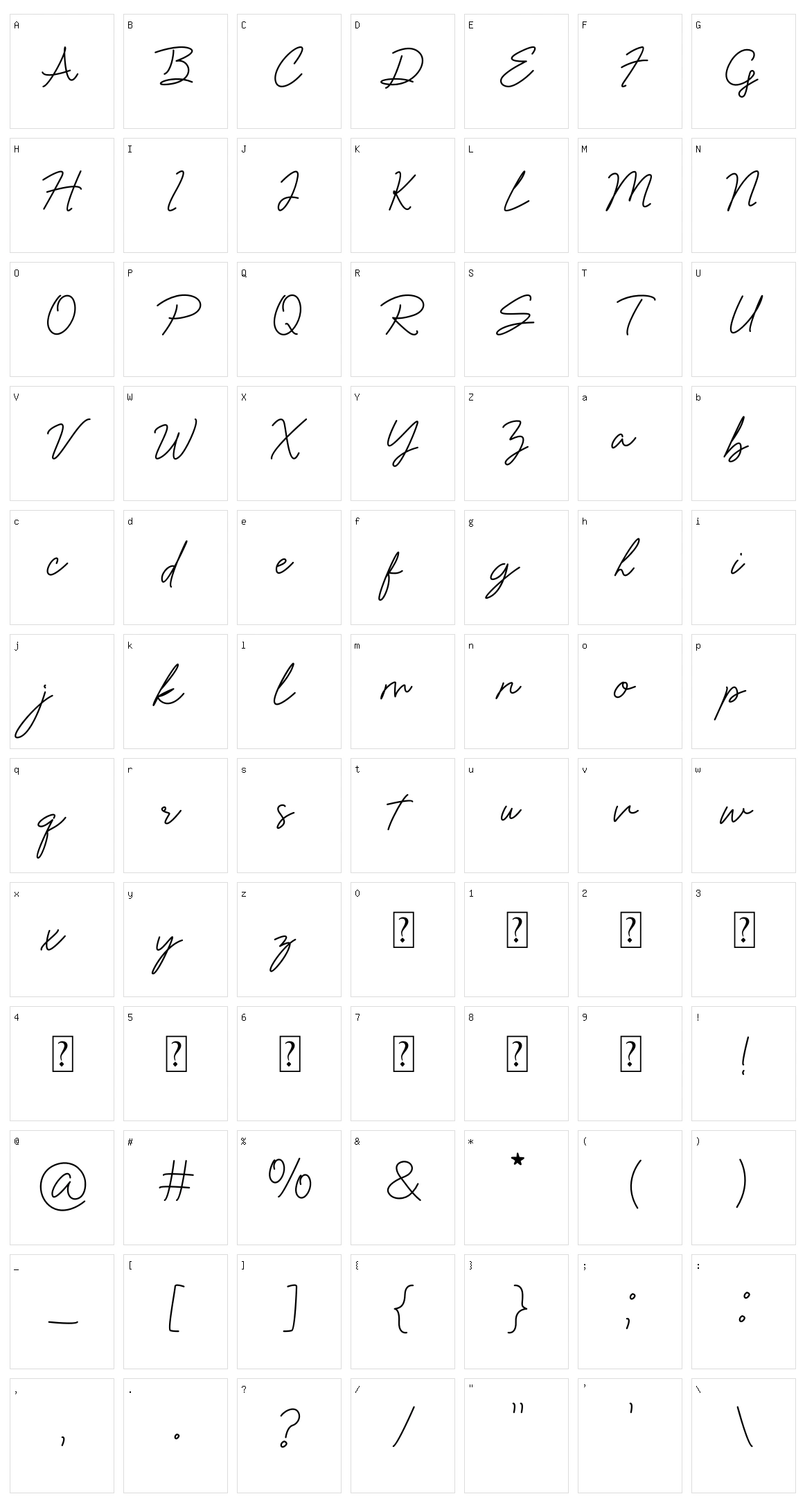
The free font Hermione is carefully designed by ReivNick, showcasing a thoughtful balance of creativity and usability and falls under the Script font style. When you download the ZIP file, it contains only 13.5 KB of font files, making it lightweight and quick to download. Please review the license details below to understand permitted usage and distribution rights. If license information is not available, we recommend using this font for personal projects only or contacting the author directly for commercial usage permissions.